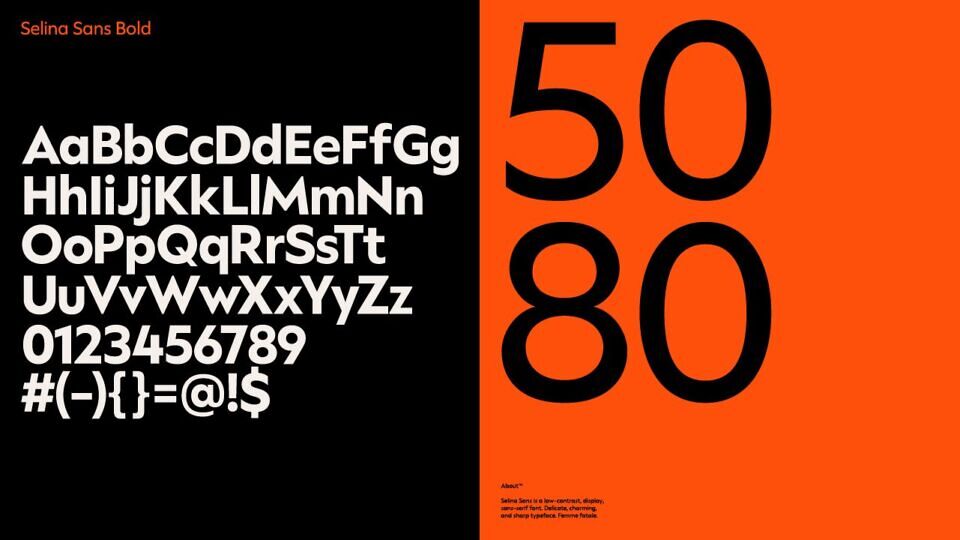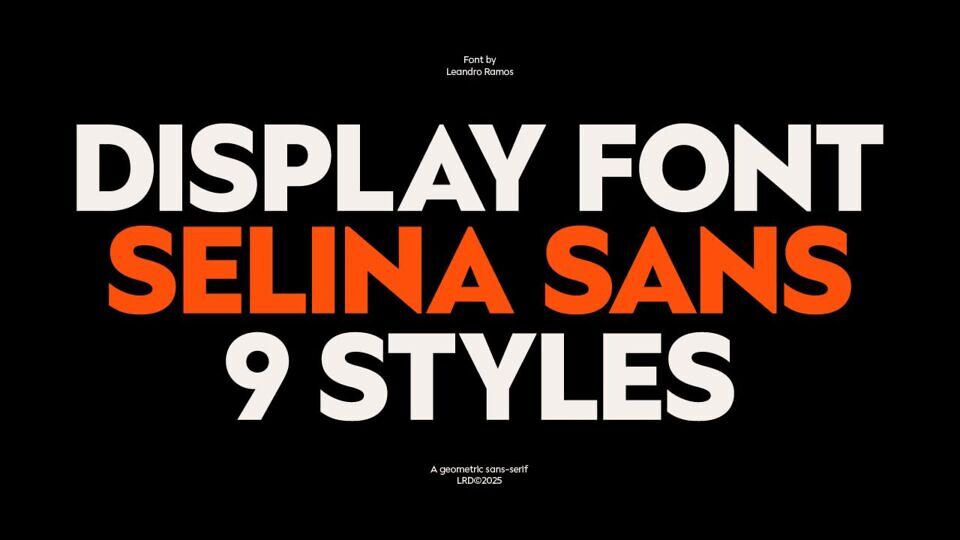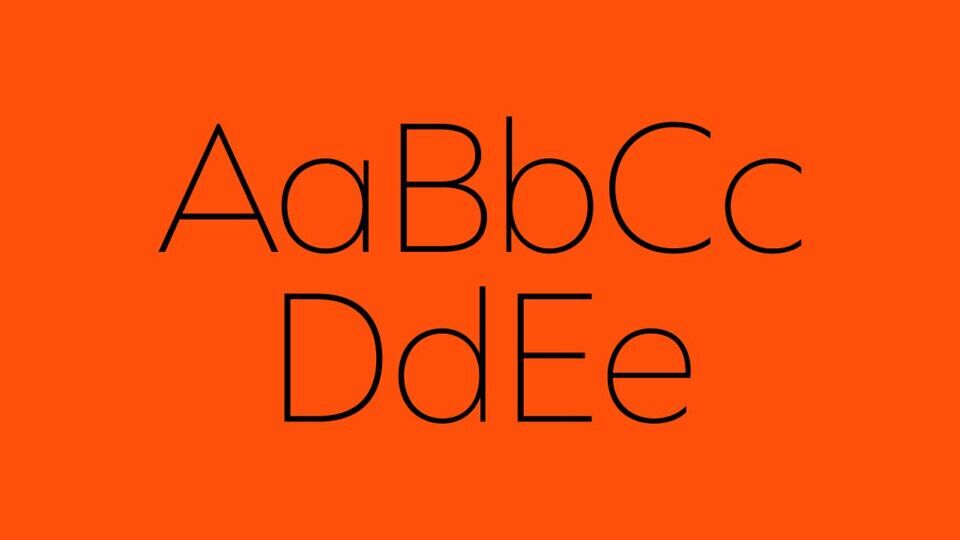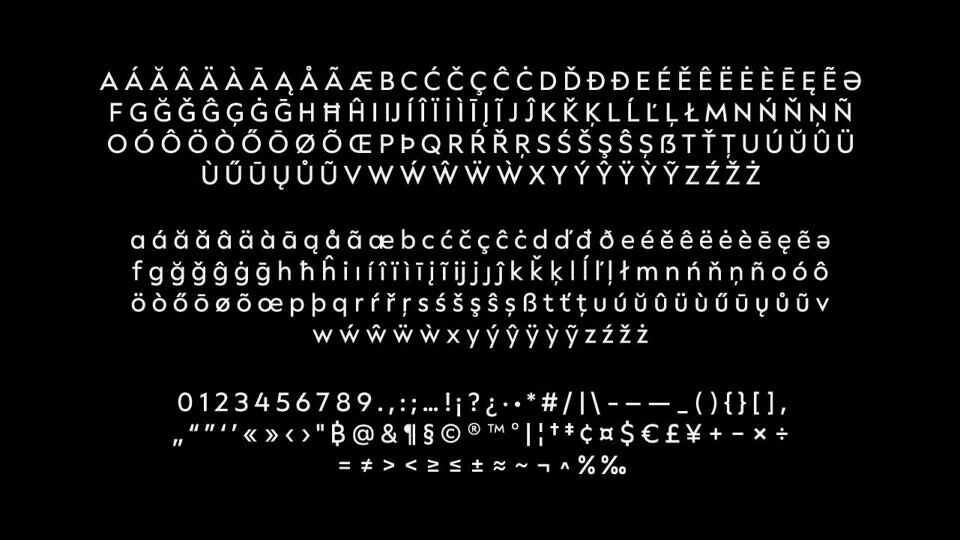
Selina Sans Regular Font
Selina Sans is a geometric sans-serif typeface, inspired by the classic Futura, yet carrying a distinct identity of its own. Designed for logos and striking headlines, it is a display typeface that balances technical precision with visual expressiveness.
Its design blends accentuated curves and sharp terminals, conveying elegance with a touch of boldness. This fusion of smoothness and precision gives the typeface a distinctive presence: sophisticated yet strong-willed. The inspiration from Selina Kyle (Catwoman) is reflected in these contrasts, resulting in a design that is both fluid and edgy.
With nine weights, from Thin to Black, Selina Sans offers versatility without compromising readability or visual impact. Supporting 90 languages, it was created to command attention and bring a contemporary and expressive feel to your projects. Selina Sans is more than just functional – it is a visual statement of intent and presence.
Designed by: Leandro Ramos